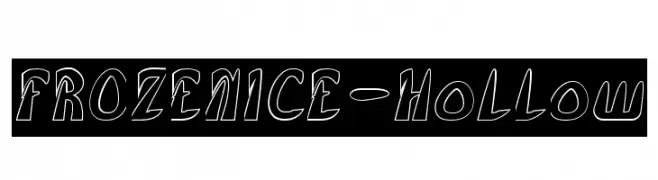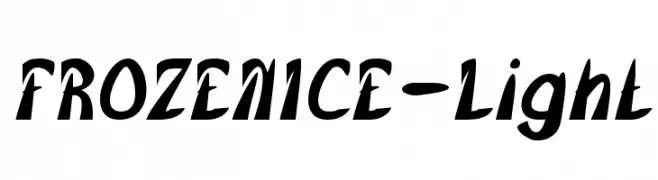
( imagex - www.imagex-fonts.com )
A bold, hand-drawn font with a playful, textured design.
( imagex - www.imagex-fonts.com )
A playful, handwritten font with bold, rounded strokes and a lively, informal style.
( imagex - www.imagex-fonts.com )
A bold, distressed font with a vintage, rugged texture.
( weknow - Wino S Kadir - www.creativefabrica.com/designer/weknow/ )
A playful, whimsical font with rounded, flowing letterforms and moderate stroke thickness.
( weknow - Wino S Kadir - www.creativefabrica.com/designer/weknow/ )
A bold, hollow font with angular lines and a modern, energetic style.
( weknow - Wino S Kadir - www.creativefabrica.com/designer/weknow/ )
A bold, angular font with a dynamic slant and modern appeal.
( weknow - Wino S Kadir - www.creativefabrica.com/designer/weknow/ )
A bold, dynamic font with a playful and whimsical style.
( weknow - Wino S Kadir - www.creativefabrica.com/designer/weknow/ )
A playful and dynamic font with bold, slanted letterforms and a lively appearance.
( 76Type - 76design.com )
A playful, rounded font with a retro aesthetic and consistent stroke width.
( Billy Argel - billyargel.com/ )
An elegant, flowing script font with a pronounced italic slant.